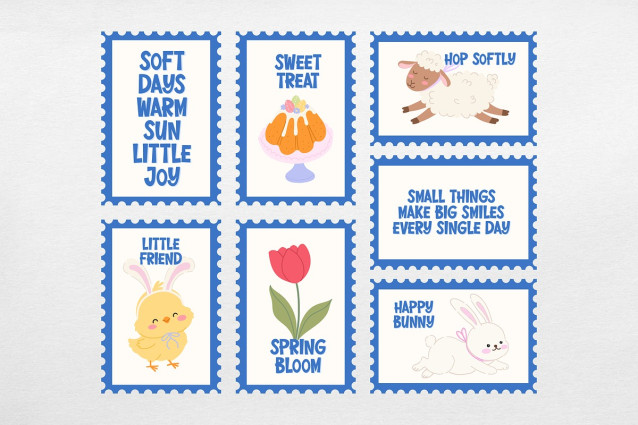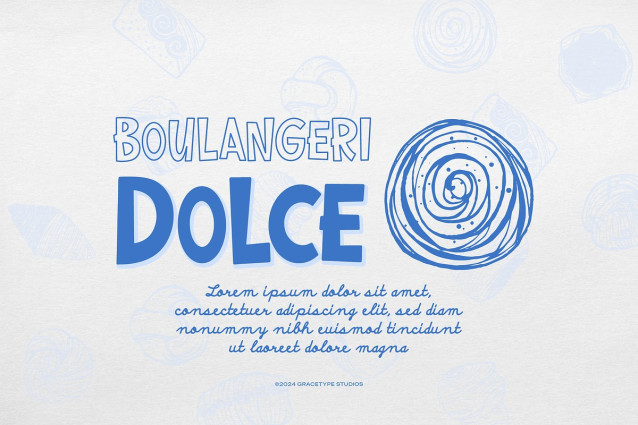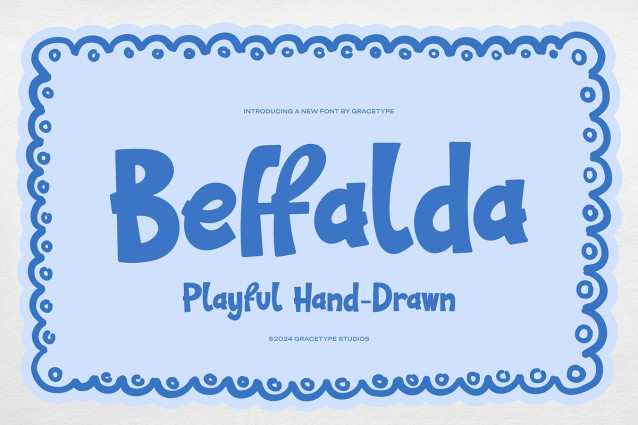
Beffalda Font
Beffalda Font | Playful Hand Drawn, from Gracetypestudio, suitable for any projects such as: logos, branding projects, homeware designs, product packaging, mugs, quotes, posters, shopping bags, t-shirts, book covers, name card, invitation cards, greeting cards, label, photography, watermark, special events, and all your other lovely projects that need a Hand Drawn taste.